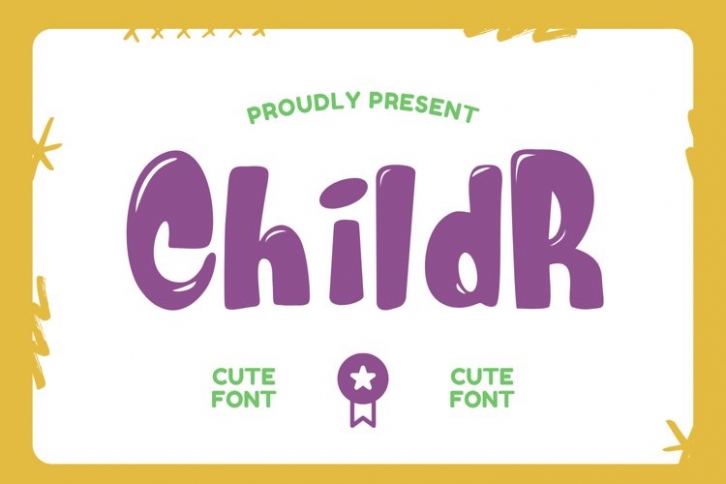
Childr is a beautiful font that was designed by plusstore. It's a great choice for designers and creatives who need such a font. It was released on September 19, 2021 and the file size is 3.44 MB. Childr may give a more youthful, expressive and casual look to your project. It is a very beautiful, refined, elegant, and high-quality font.